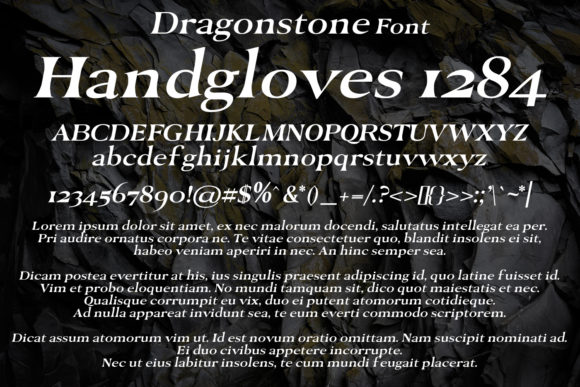
Discover the Elegance of Dragonstone Font: Elevate Your Designs with this Minimal Serif Marvel
In the vast universe of typography, finding the perfect font that brings your creative visions to life can be a daunting task. However, if you’re on the lookout for a typeface that exudes elegance, versatility, and a touch of sophistication, look no further than the Dragonstone Font. This minimal and neat serif font is not just a stylish addition to your typographic arsenal but a game-changer for designers and crafters aiming to make their projects stand out.
The Essence of Dragonstone Font
Dragonstone Font is characterized by its clean lines, minimalistic approach, and the subtle elegance of serif details. It’s a masterful blend of modern simplicity and traditional typographic elements, making it an incredibly versatile font. Whether you’re working on a branding project, crafting a unique logo, designing an elegant website, or creating engaging print materials, Dragonstone Font can seamlessly integrate into a wide array of creative endeavors.
Why Choose Dragonstone Font?
So, what sets Dragonstone Font apart from the myriad of typefaces available today? Here are a few compelling reasons why it should be at the top of your font wishlist:
- Versatility: Its neutral yet distinctive style allows it to complement a vast range of design themes and projects. From luxury brands to creative blogs, and from digital interfaces to print media, Dragonstone Font adapts with ease.
- Elegance: The subtle serif details add a layer of sophistication and elegance, making it perfect for designs that require a touch of refinement.
- Readability: Despite its elegant and minimalist design, Dragonstone Font maintains excellent readability, even at smaller sizes. This makes it an excellent choice for body text as well as headings.
- Uniqueness: In a sea of commonly used fonts, Dragonstone offers a fresh and distinctive look that can help your designs stand out from the crowd.
Applications of Dragonstone Font
The applications of Dragonstone Font are as diverse as its features. Here are some of the areas where it truly shines:
- Branding and Logos: Create a lasting impression with a logo that embodies your brand’s essence, using Dragonstone Font for a sophisticated and memorable look.
- Web Design: Enhance your website’s aesthetic and user experience with elegant headings, readable body text, and distinctive calls-to-action.
- Print Design: From business cards and brochures to posters and packaging, Dragonstone Font brings a level of elegance and professionalism to any print material.
- Digital Content: Elevate your digital content, including social media graphics, e-books, and presentations, with a font that captures attention and conveys your message effectively.
How to Make the Most of Dragonstone Font
To truly leverage the potential of Dragonstone Font in your designs, consider the following tips:
- Experiment with Sizes: Play around with different font sizes to create visual hierarchy and emphasize key elements of your design.
- Color Matters: Choose colors that complement the elegance of Dragonstone Font. Monochromatic schemes or subtle gradients can enhance its sophisticated feel.
- Pair it Wisely: While Dragonstone Font is versatile on its own, pairing it with complementary fonts can add depth and interest to your designs. Opt for fonts that share a similar aesthetic or contrast in style for visual impact.
Dragonstone Font is more than just a typeface; it’s a design companion that can elevate your creative projects to new heights. Its blend of minimalism, elegance, and versatility makes it an invaluable asset for designers and crafters looking to make a statement. Whether you’re aiming to craft visually stunning websites, impactful branding materials, or captivating digital content, Dragonstone Font is poised to become your go-to choice. Embrace the elegance and sophistication it offers, and watch your designs transform with a touch of typographic excellence.